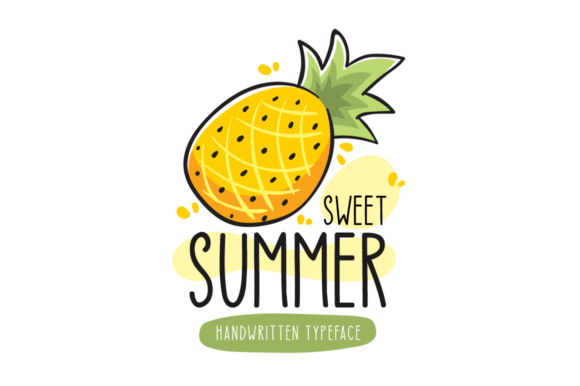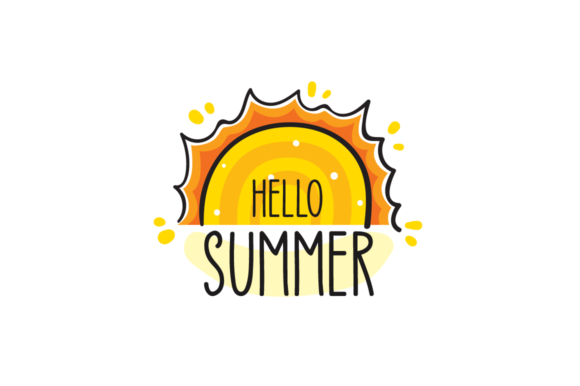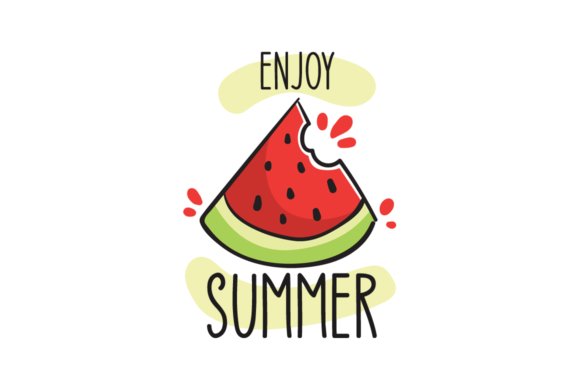
Sweet Summer Font
About Sweet Summer Font
Sweet Summer is a tall and a bit quirky handwritten font. Its friendly and simple style makes this font adept to a wide variety of designs.